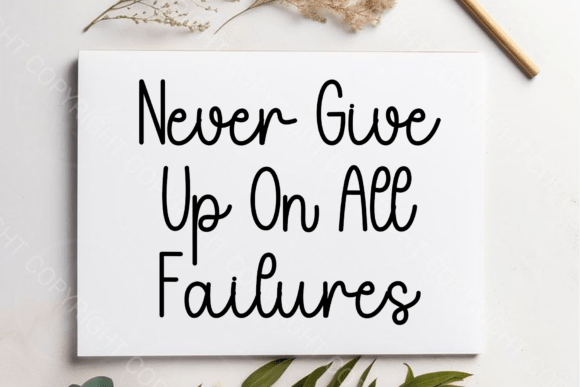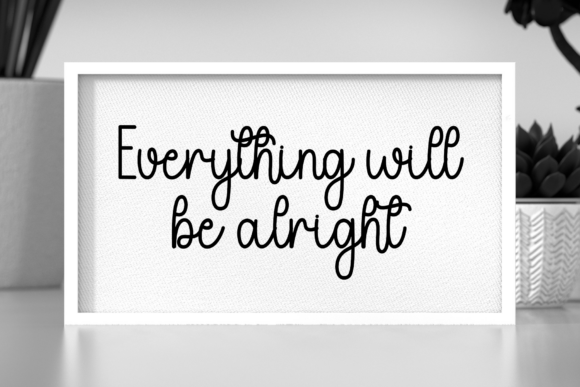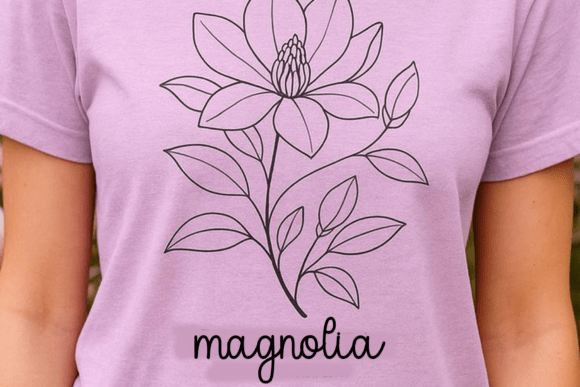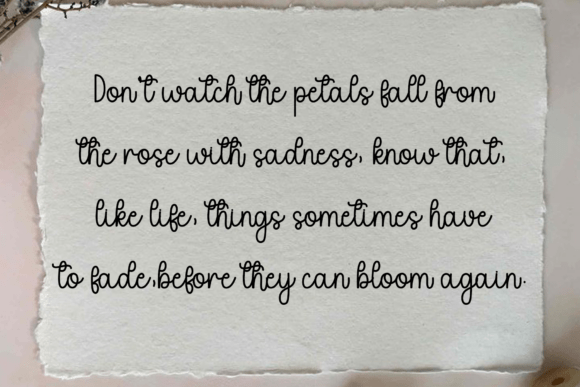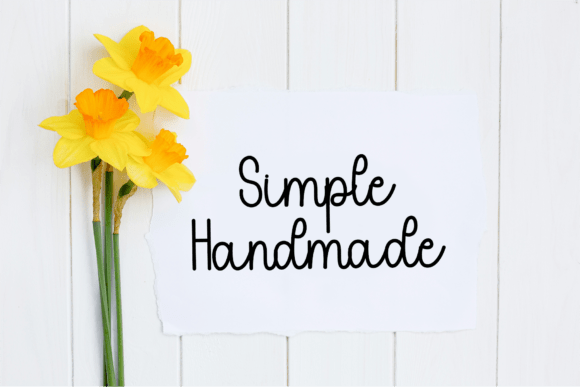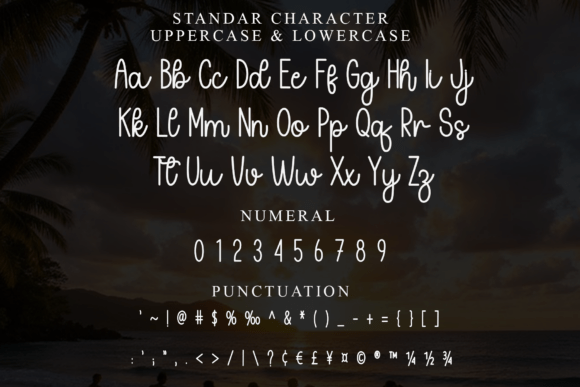
Discover the Charm of Hello Catalina Font: A Perfect Blend of Creativity and Friendliness
In the world of typography, fonts play a crucial role in conveying emotions and setting the tone for any design project. If you’re on the hunt for a font that exudes warmth, friendliness, and a touch of playfulness, look no further than the Hello Catalina Font. This casual and creative font is designed to make your designs feel more approachable and engaging, making it perfect for personal projects, invitations, social media graphics, and more.
The Unique Characteristics of Hello Catalina Font
Hello Catalina Font stands out with its round, playful strokes that give it a relaxed and inviting feel. The font’s charming, hand-drawn aesthetic adds a fun and unique touch to any design, making it an excellent choice for designers and crafters looking to infuse their work with personality. Whether you’re creating a birthday invitation, a social media post, or a personal blog, Hello Catalina Font is sure to make your content stand out.
Key Features of Hello Catalina Font
- Casual and Creative: Hello Catalina Font boasts a casual and creative vibe that’s perfect for projects that require a friendly and approachable tone.
- Round and Playful Strokes: The font’s round, playful strokes create a relaxed feel that’s sure to engage your audience.
- Hand-Drawn Aesthetic: The charming, hand-drawn aesthetic of Hello Catalina Font adds a unique touch to any design.
Why Choose Hello Catalina Font?
Hello Catalina Font is an excellent choice for designers and crafters for several reasons:
- Versatility: The font’s casual and creative nature makes it suitable for a wide range of projects, from personal invitations to social media graphics.
- Unique Touch: The font’s hand-drawn aesthetic ensures that your designs will have a unique and personalized touch that sets them apart.
Hello Catalina Font is a versatile and charming font that’s perfect for designers and crafters looking to add a touch of warmth and friendliness to their projects. With its round, playful strokes and hand-drawn aesthetic, this font is sure to make your designs stand out. Its compatibility with various application engines and ease of use make it a convenient choice for a wide range of projects. So why wait? Discover the charm of Hello Catalina Font and take your designs to the next level.